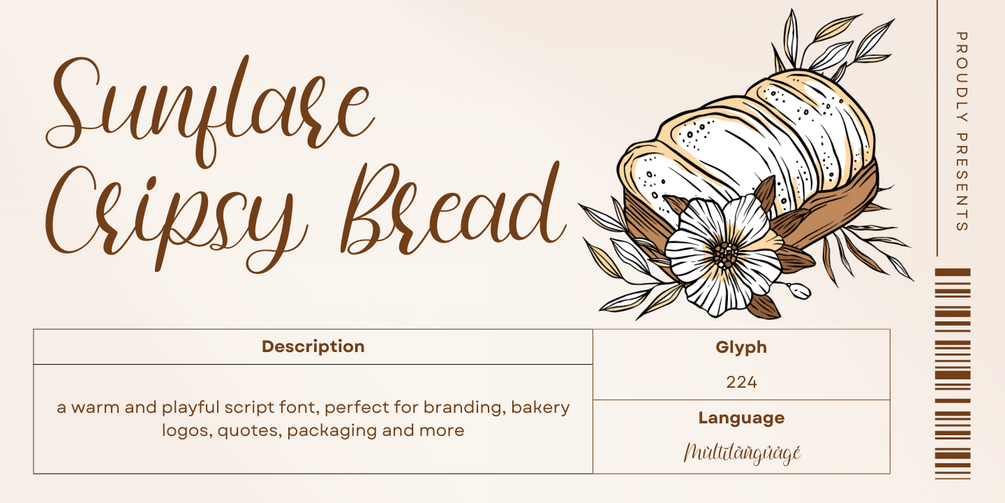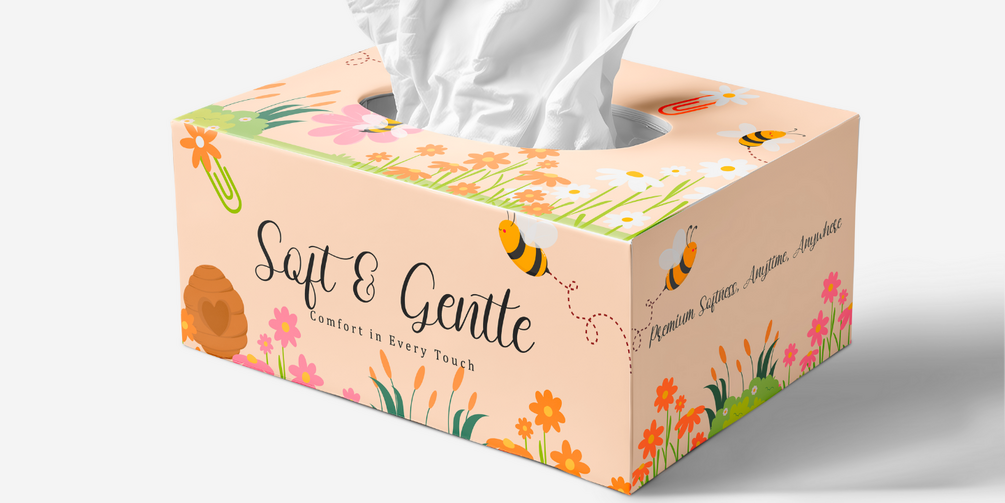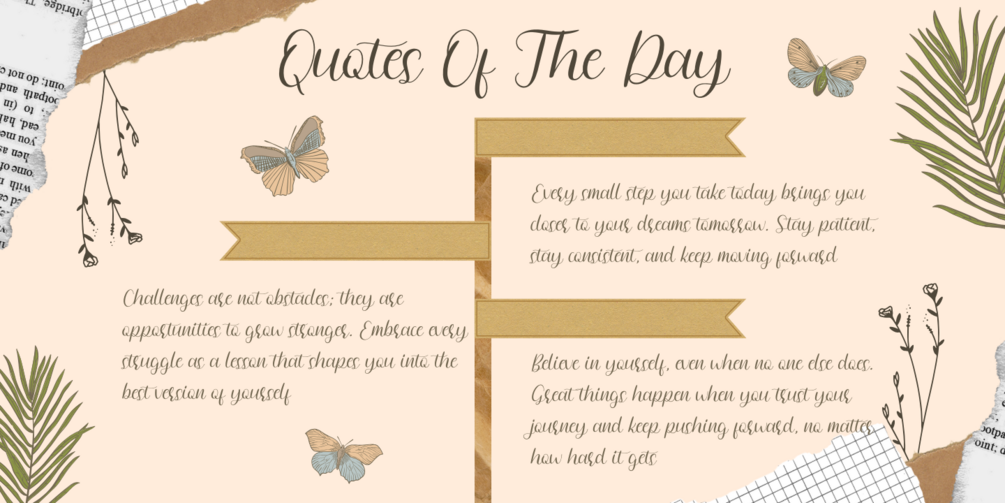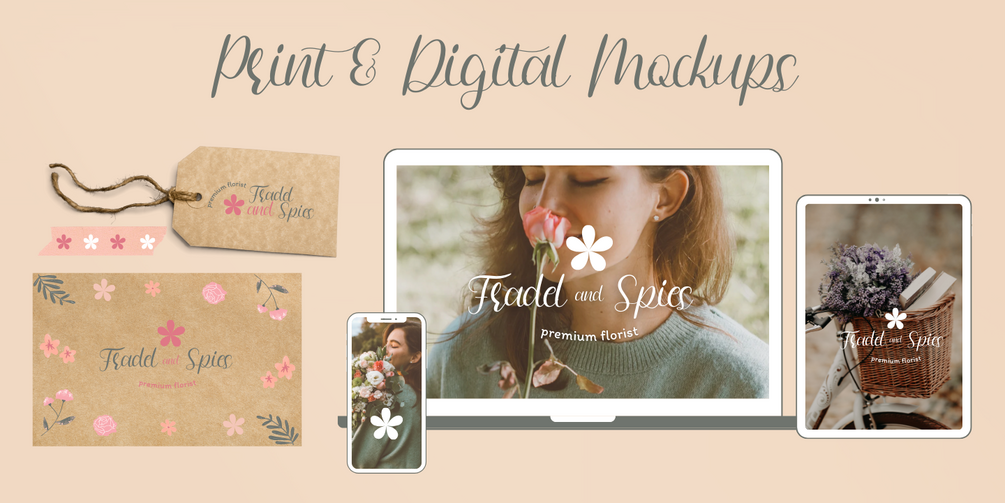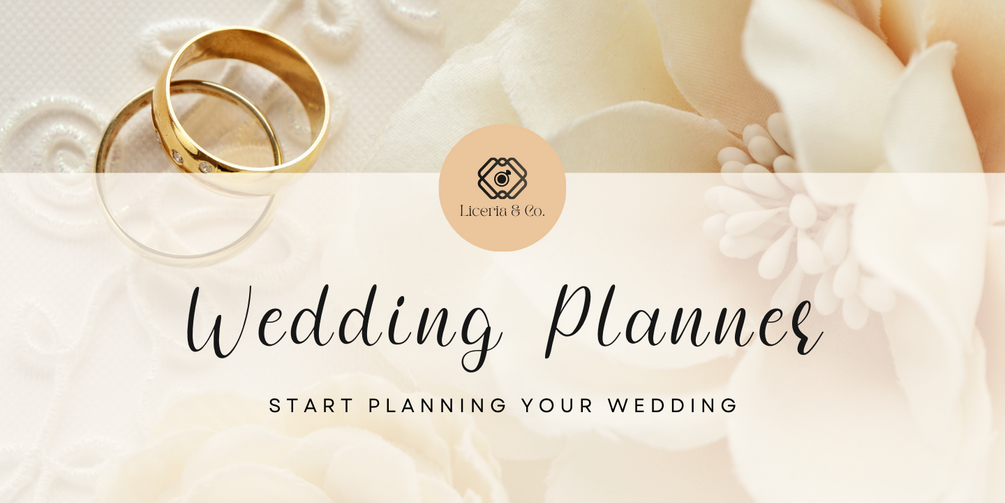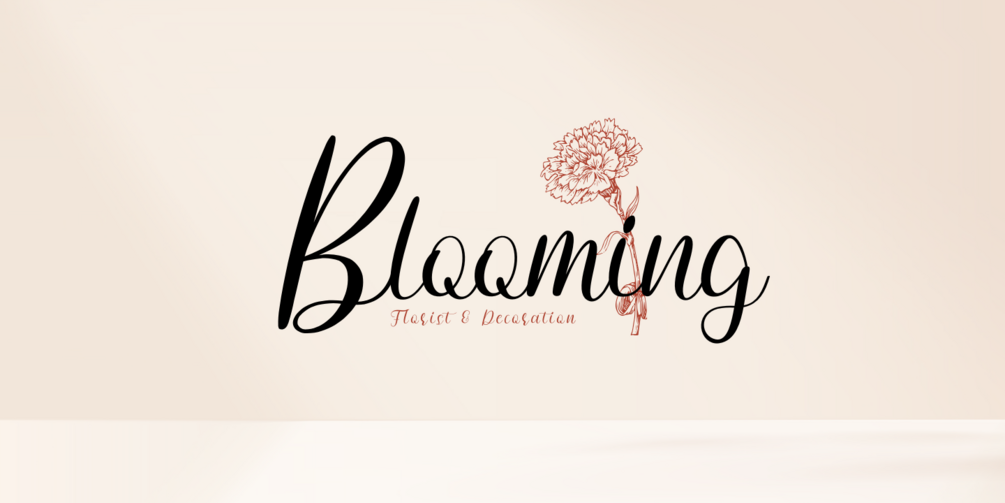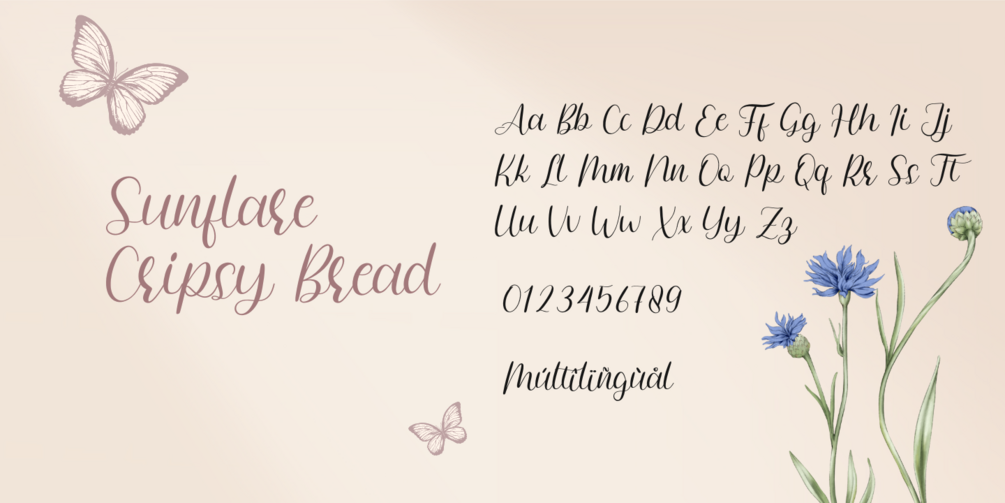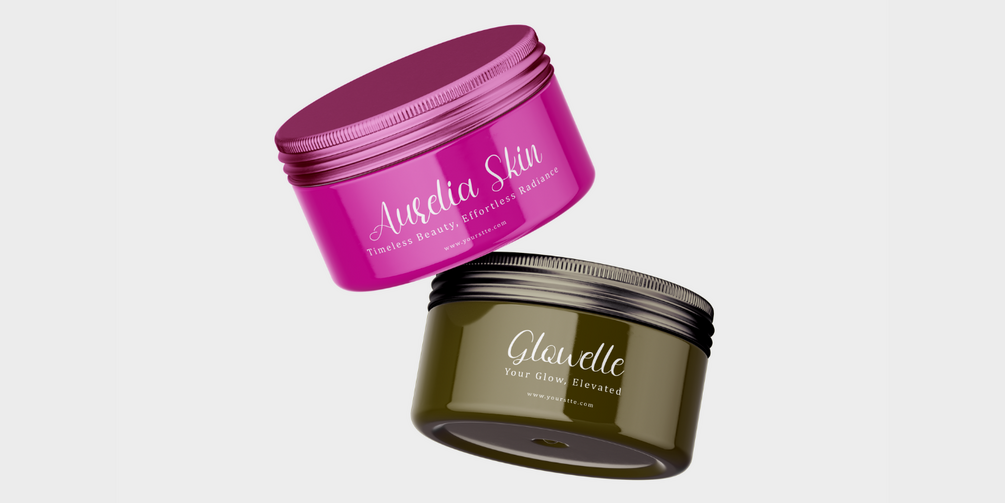
Sunflare Cripsy Bread
Sunflare Cripsy Bread is a warm and playful script font with a handmade feel. Its smooth curves and lively strokes bring a charming, personal touch to any design. Perfect for branding, packaging, bakery logos, quotes, and social media, this font adds a delightful and inviting look to your projects.
Multilingual support for a variety of languages
OpenType features, including ligatures
Let Sunflare Cripsy Bread bring a cozy and cheerful vibe to your next creation!